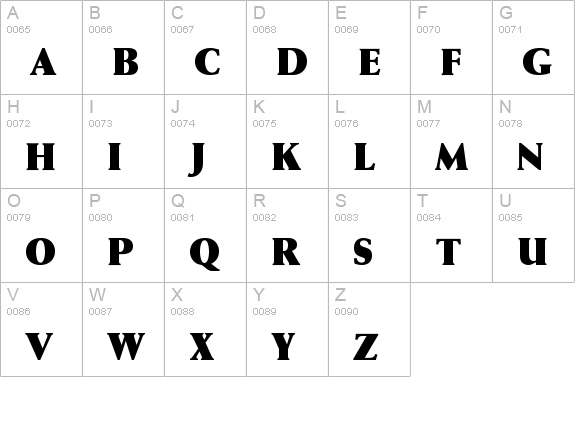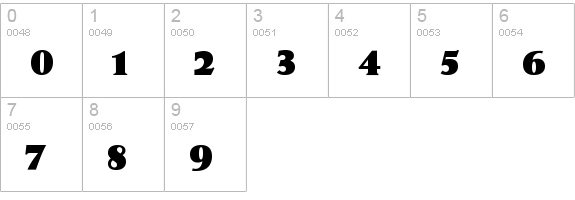
WeissAntiquaEF-UltraBold is an extra-heavy, attention-grabbing variant in the WeissAntiquaEF typeface family \xE2\x80\x94 well suited to high-impact headlines, posters, and bold branding.
WeissAntiquaEF-UltraBold font is a stunning display typeface that exudes elegance and sophistication. Its bold and distinctive letterforms captivate the eye, making it perfect for headlines, titles, and branding projects that demand attention. This font, with its timeless appeal, effortlessly combines classic aesthetics with a contemporary twist. The thick and strong strokes of WeissAntiquaEF-UltraBold create a sense of power and authority, while the intricate details add a touch of refinement and grace. One of the standout features of this font is its versatility. Whether used in print or digital media, WeissAntiquaEF-UltraBold stands out with its exceptional legibility and readability. Its large x-height ensures that every character is easily distinguishable, even at small sizes. The best part? WeissAntiquaEF-UltraBold is available for free! You can download this magnificent font from FontsMarket.com, a trusted source for high-quality typography. This means that designers, creatives, and typography enthusiasts can enjoy the benefits of this remarkable font without any cost. So, if you're working on a project that requires a bold and impactful typeface, look no further than WeissAntiquaEF-UltraBold. With its striking presence and freely available download, this font is sure to elevate your designs and make a lasting impression.